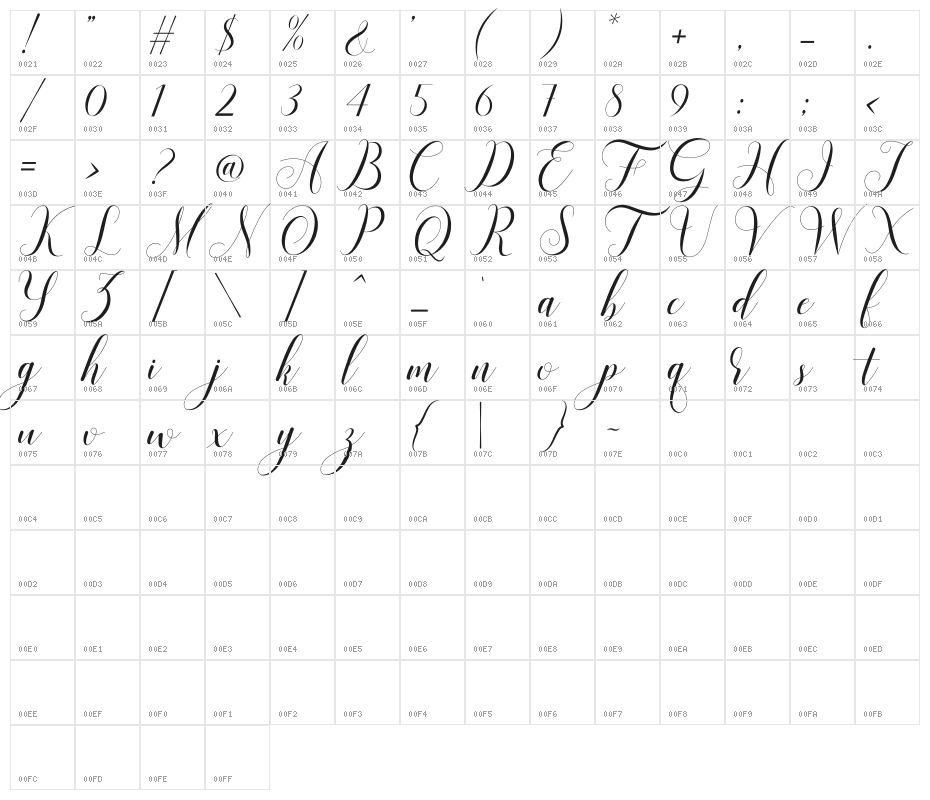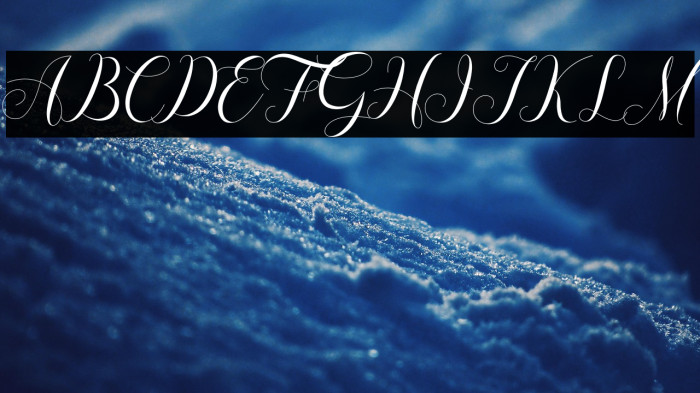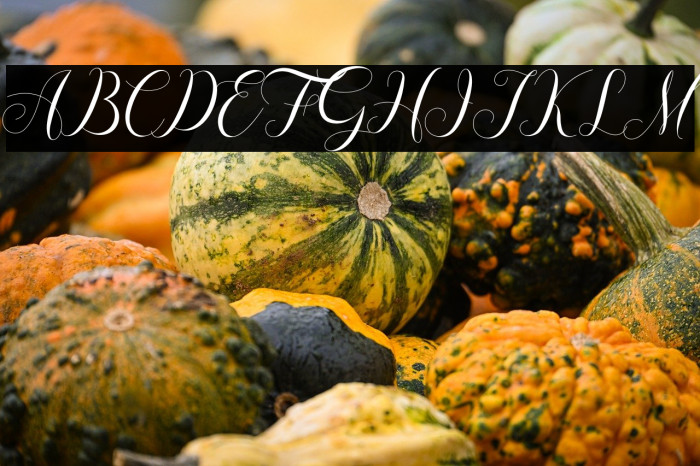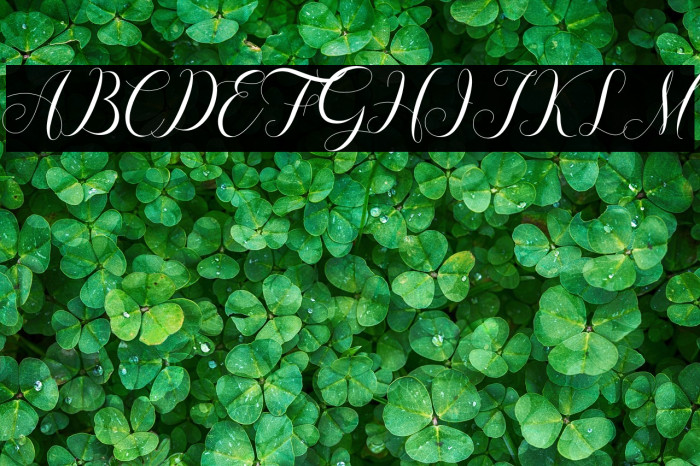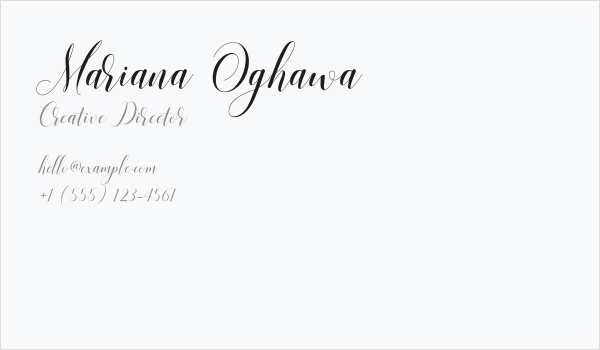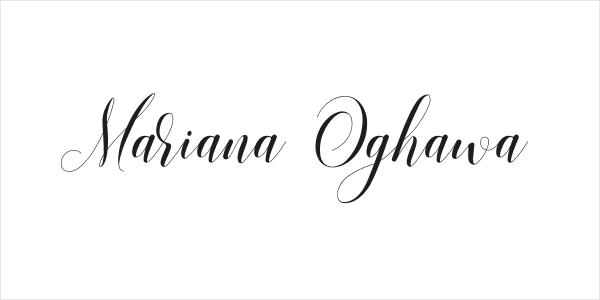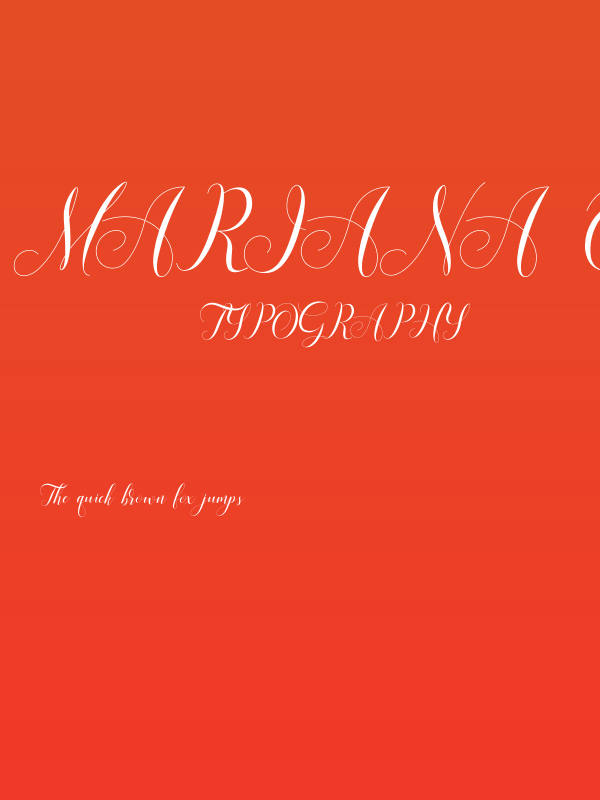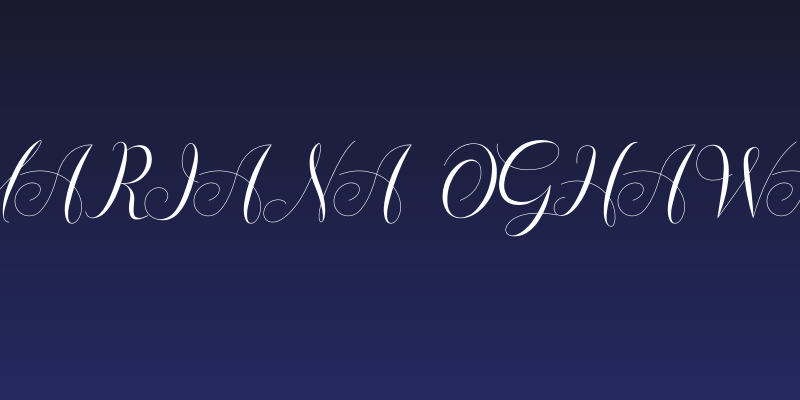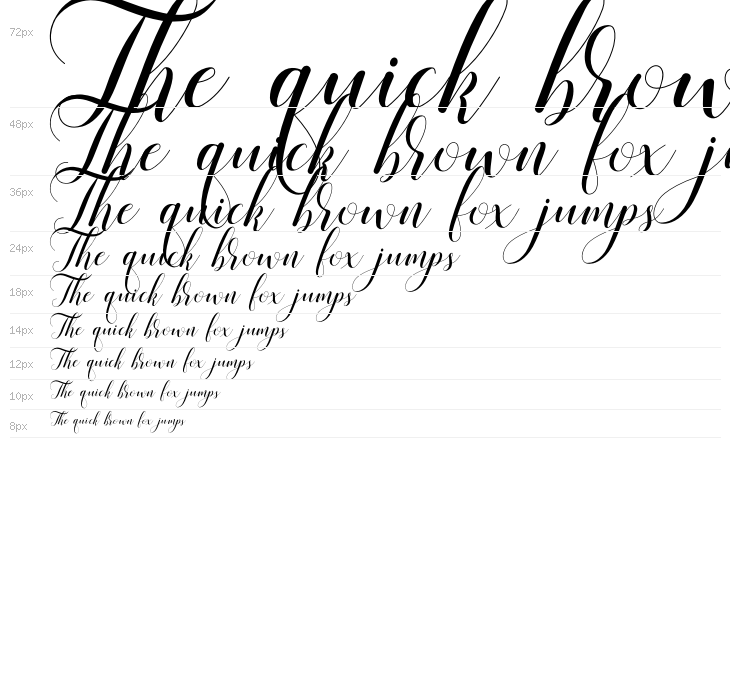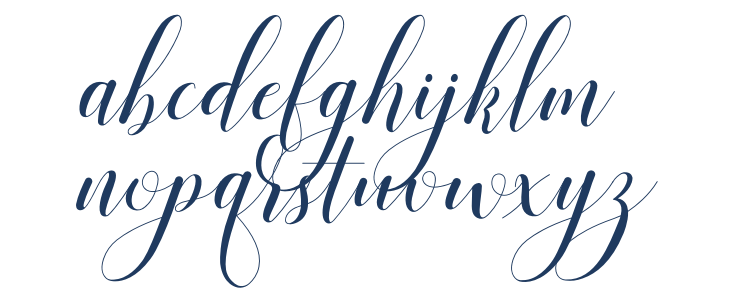
Mariana Oghawa Font
Mariana Oghawa Description
This elegant script font features flowing, interconnected letters with a refined and sophisticated appearance. The uppercase letters are adorned with graceful flourishes, adding a touch of luxury and formality. The lowercase letters maintain a consistent slant, enhancing the fluidity and continuity of the text. The numerals are stylish and complement the overall aesthetic, while the special characters are crafted with the same attention to detail. The font's high contrast between thick and thin strokes emphasizes its decorative nature, making it ideal for applications that require a touch of elegance and class.
| Overall Style | Elegant, Decorative |
| Proposed Projects | Ideal for wedding invitations, luxury branding, elegant packaging, and formal event materials. |